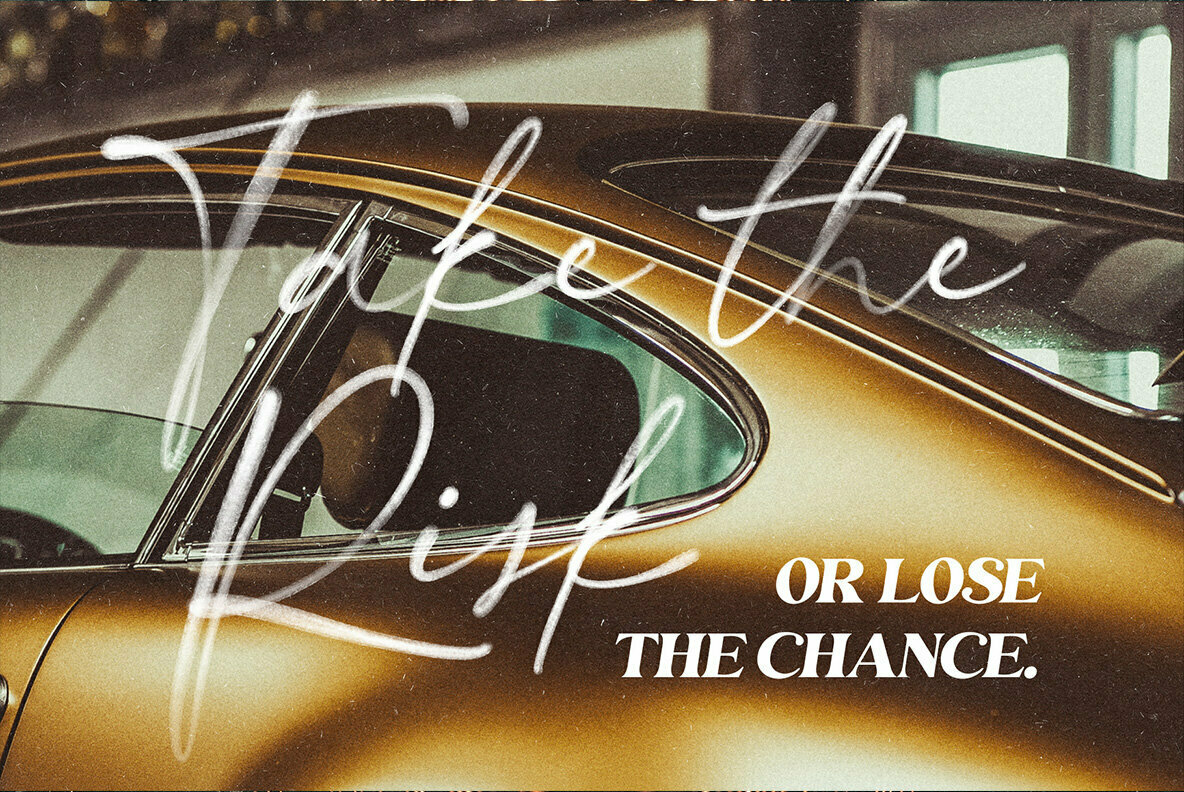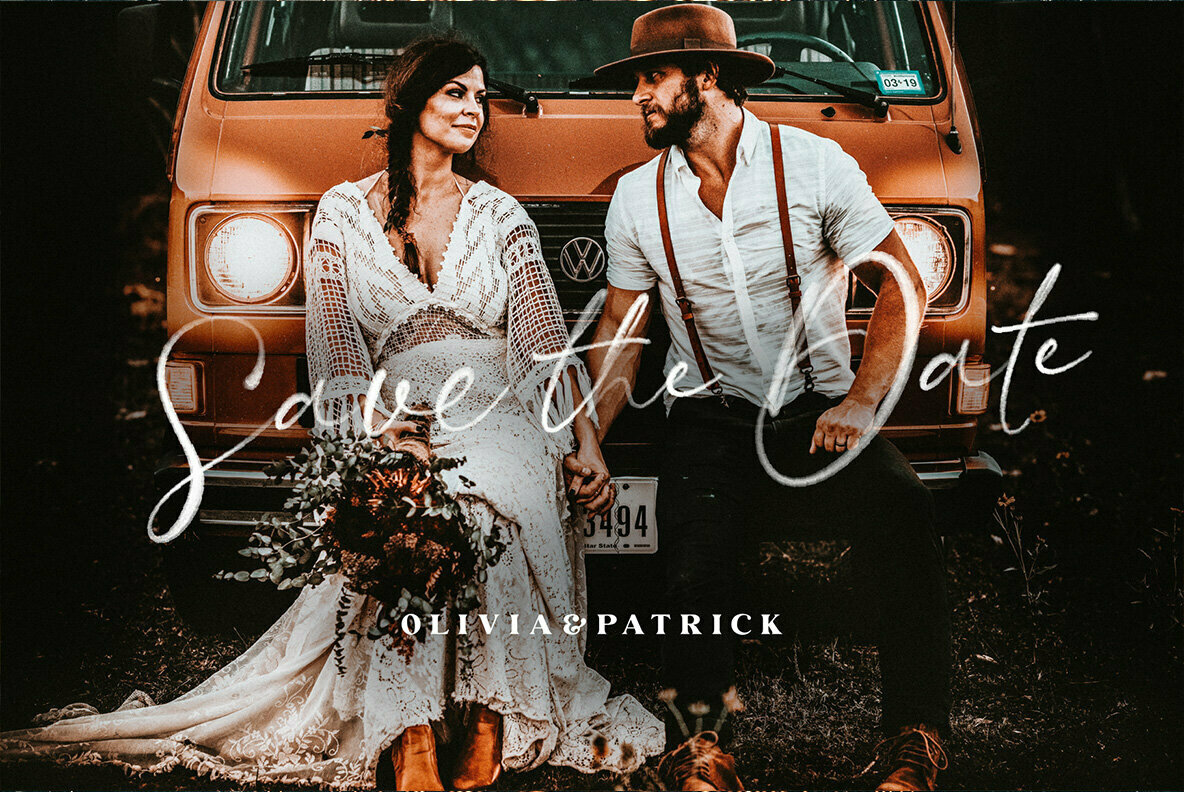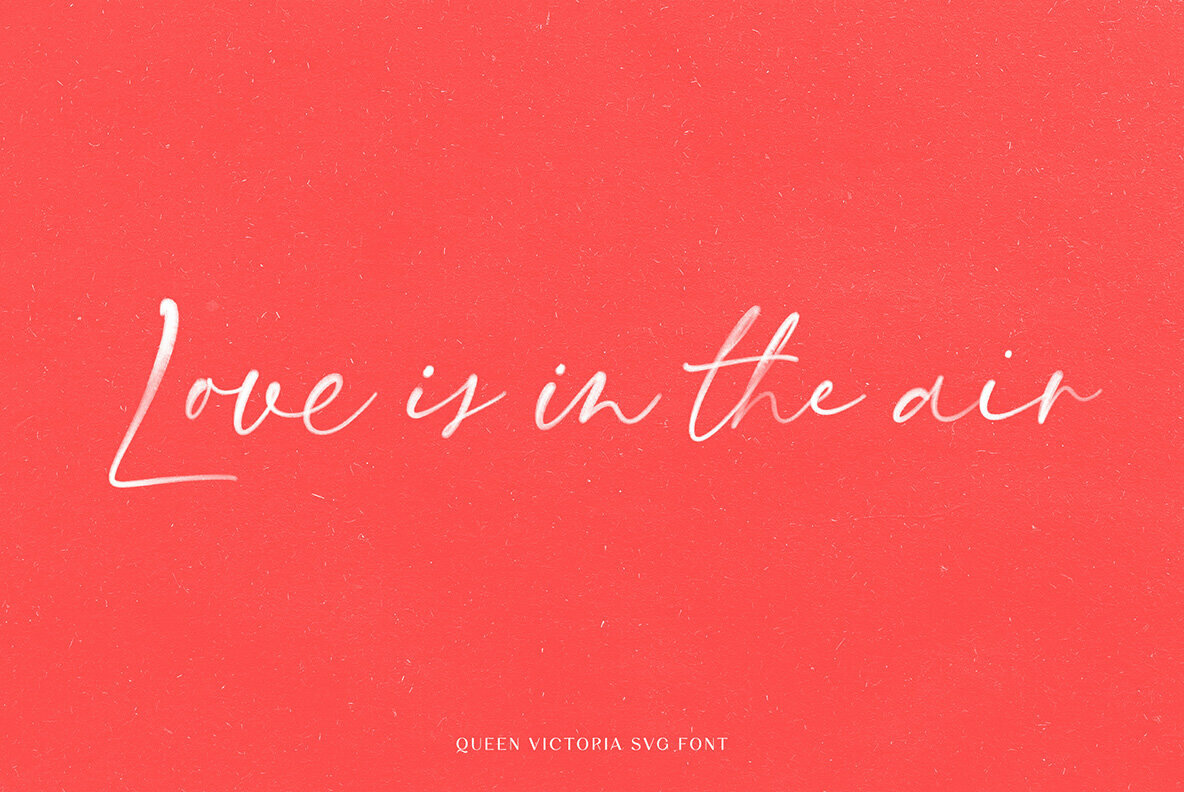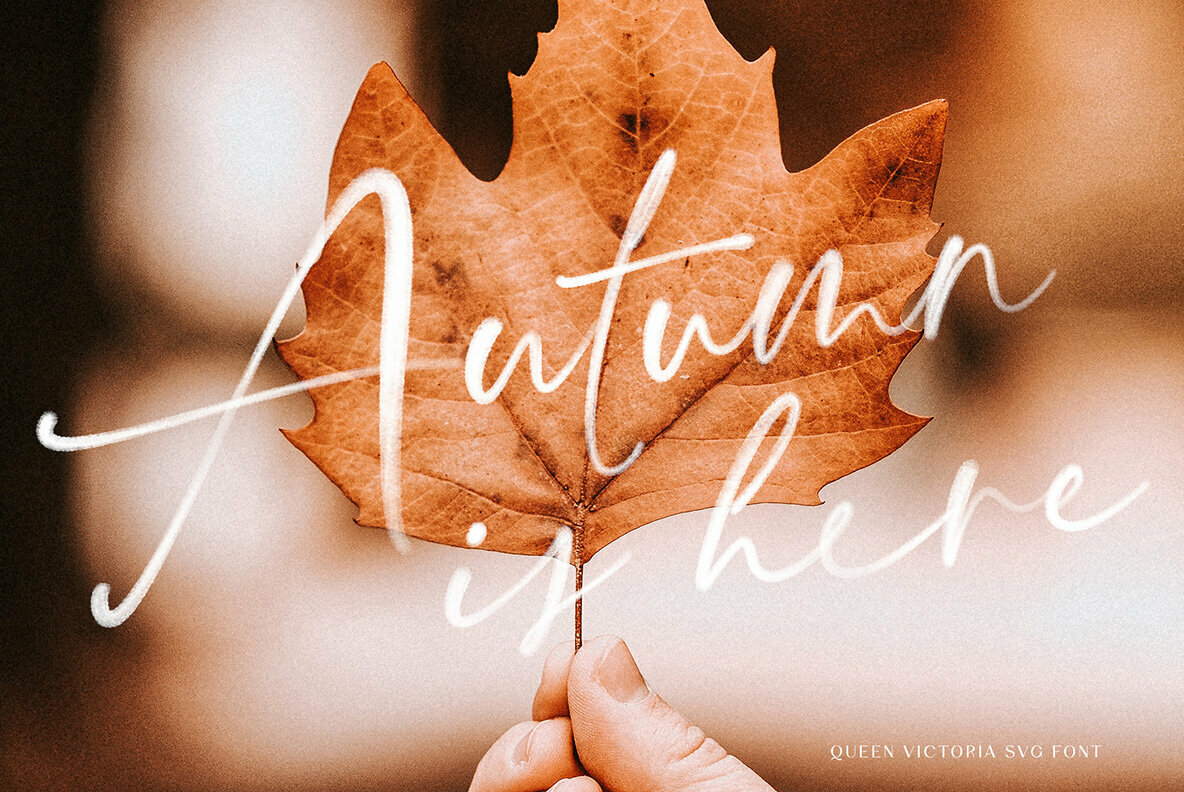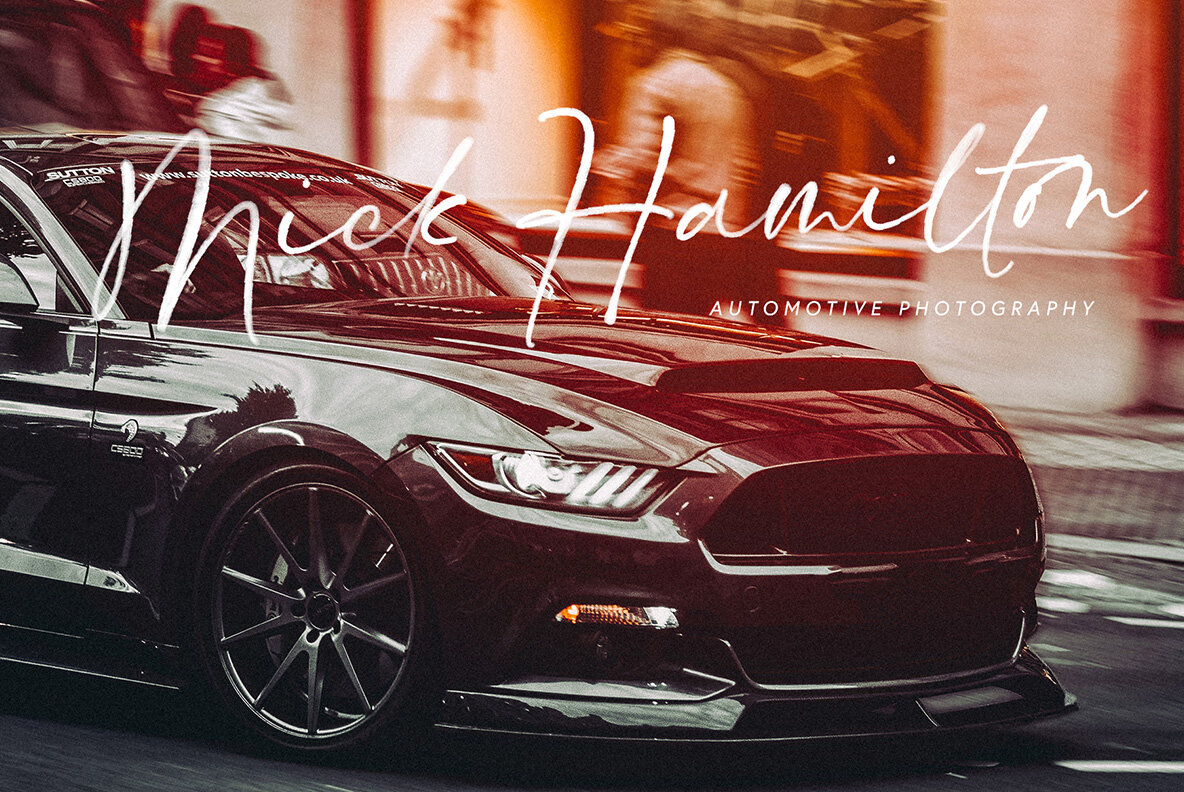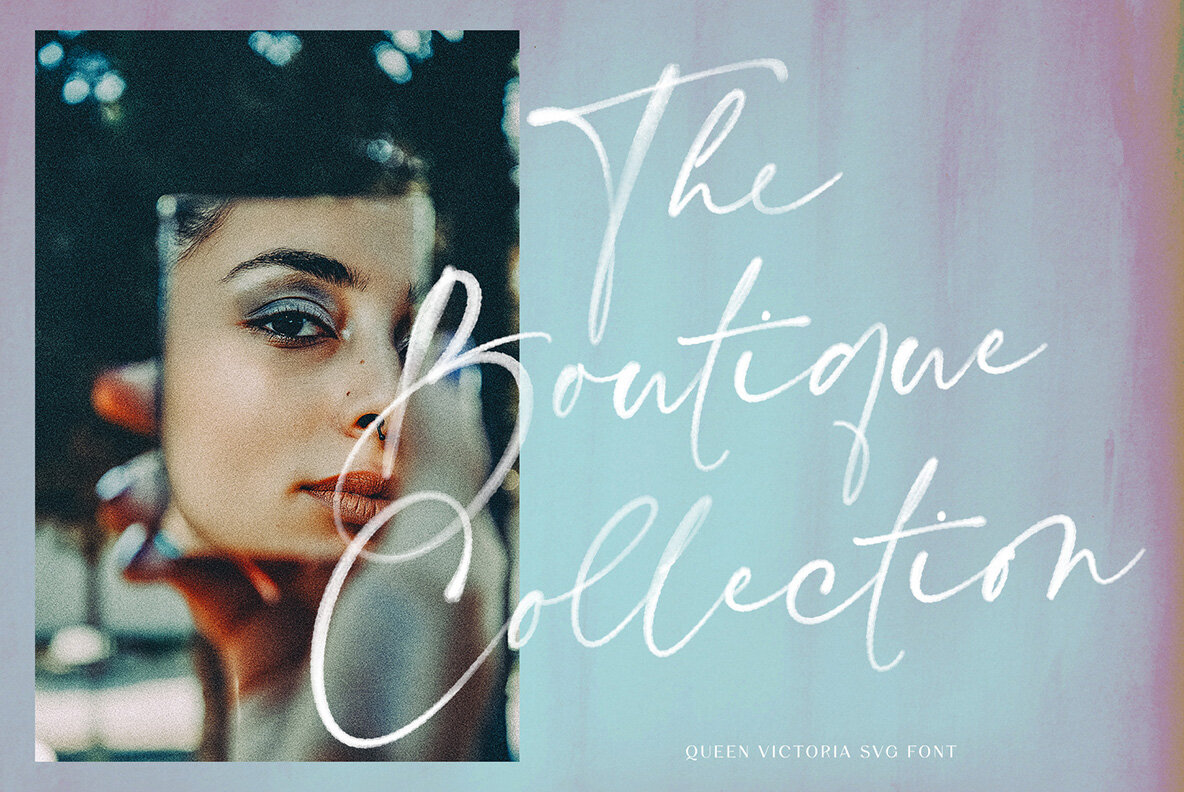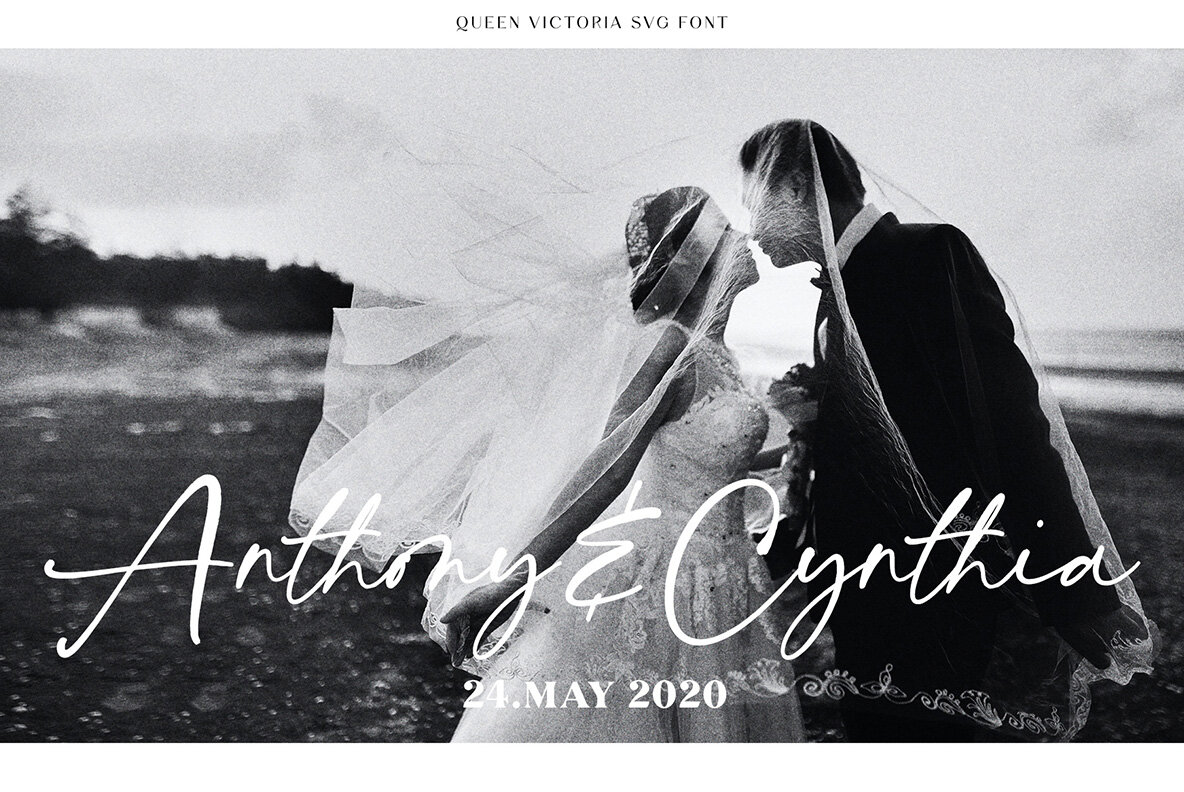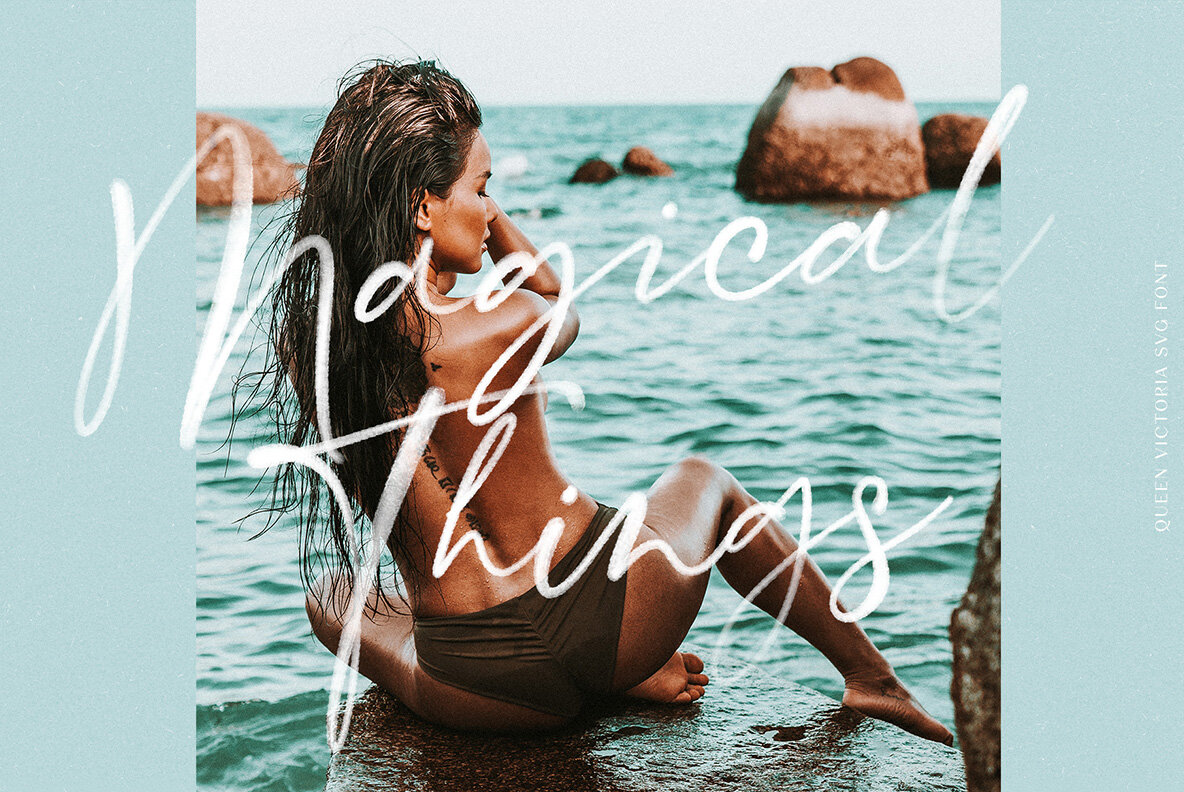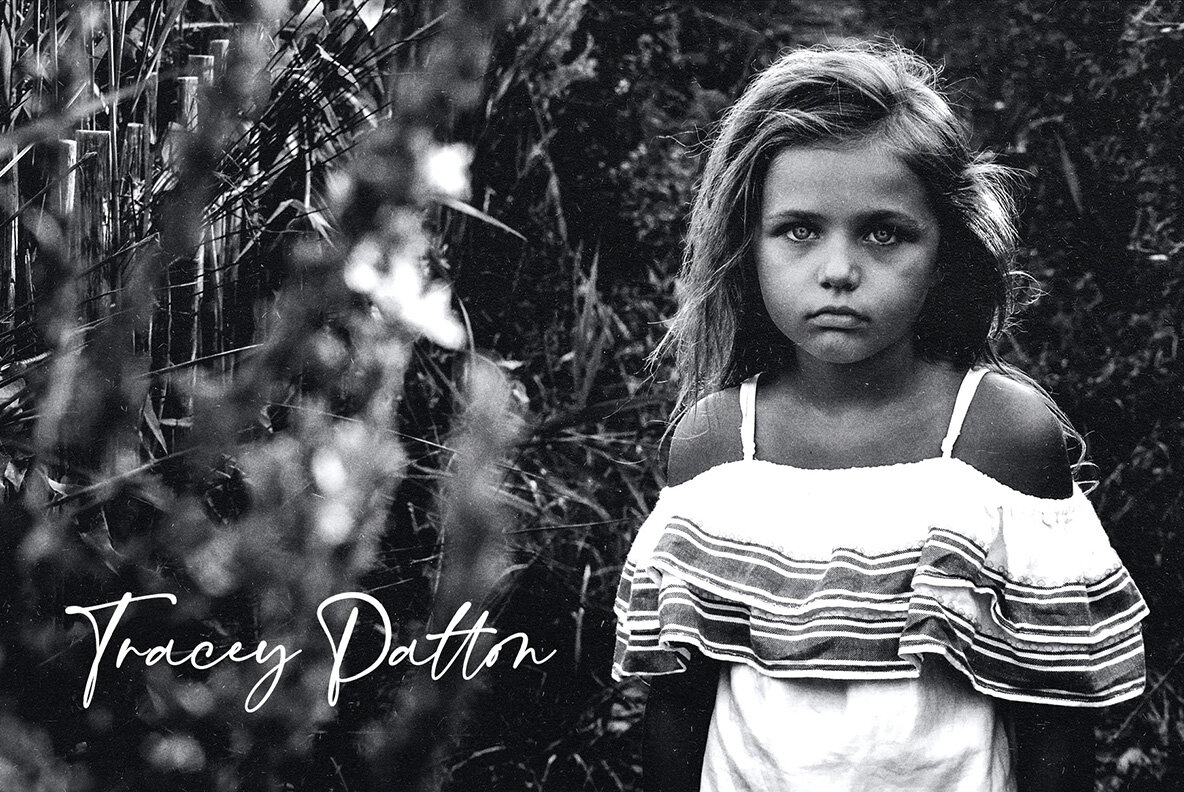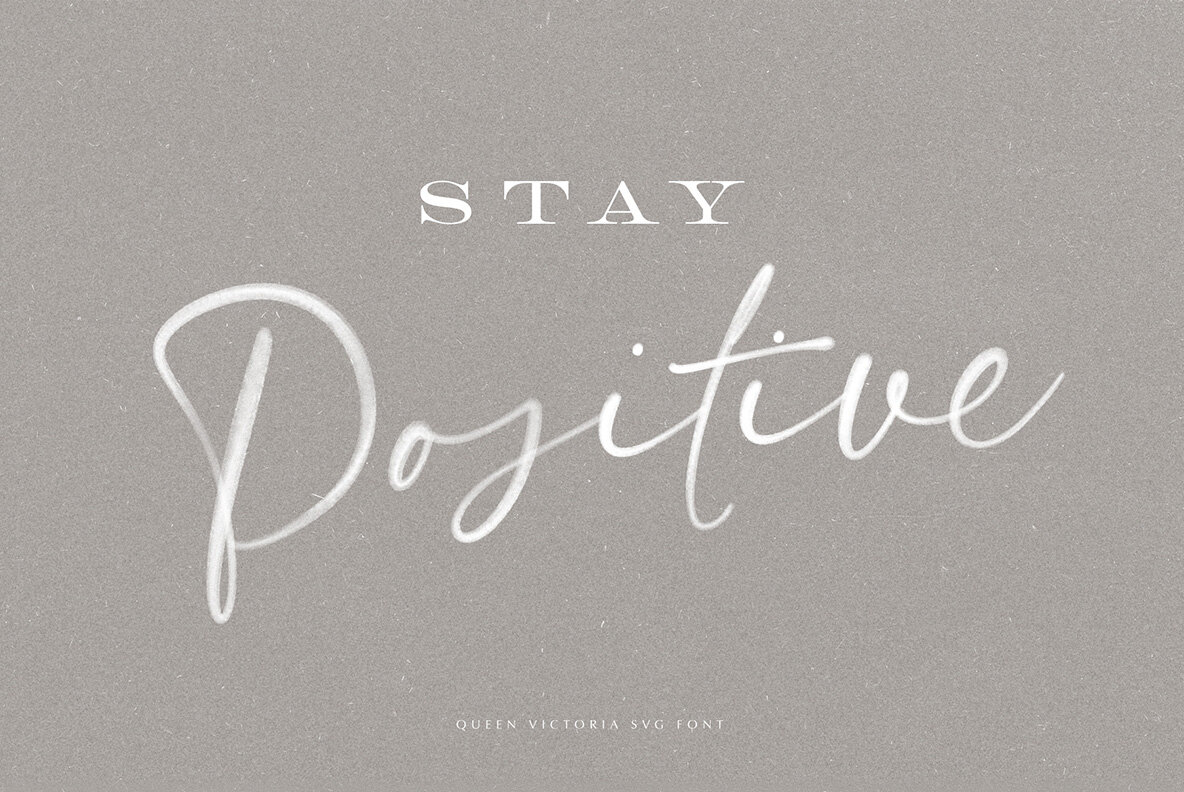
Queen Victoria SVG Font
Queen Victoria is elegant modern signature SVG font,, hand lettered font with semi-transparent effect.
Queen Victoria comes in SVG and “normal” vector OTF version. SVG font preserves all the high definition detail of the original handwritten letters. Using OpenType-SVG technology it truly looks gorgeous.